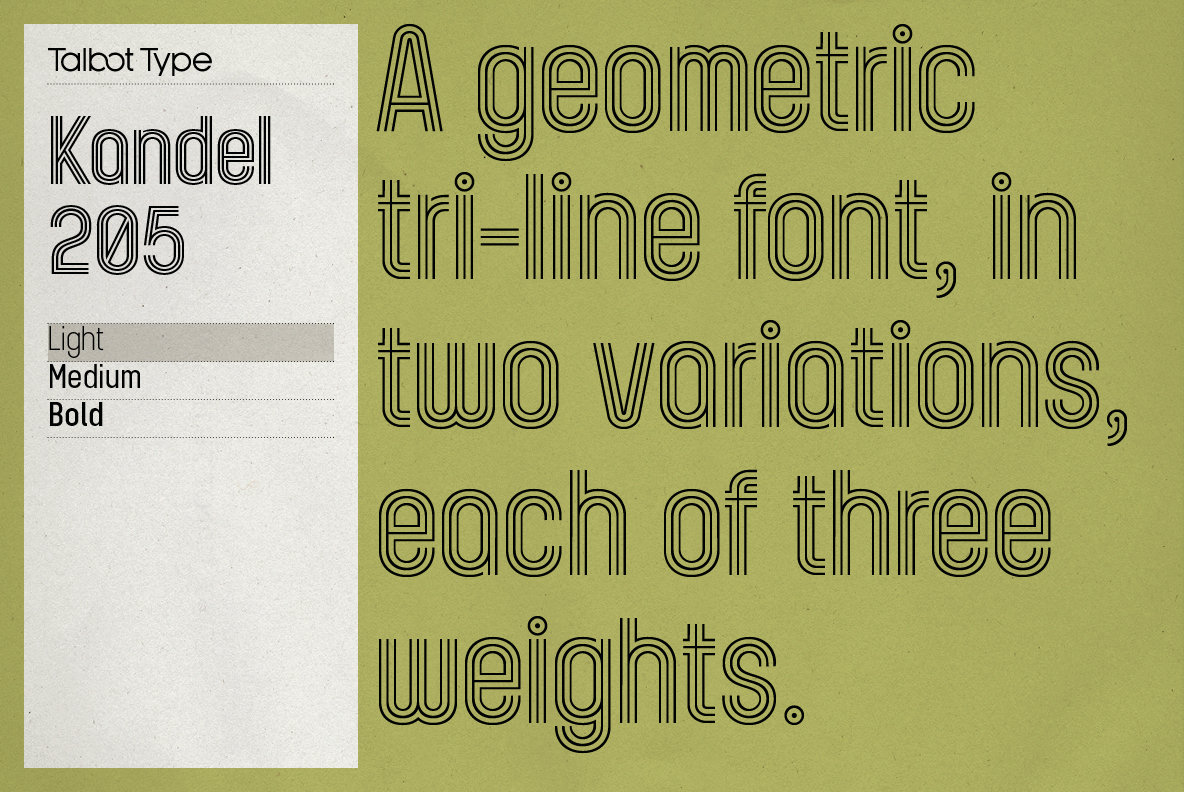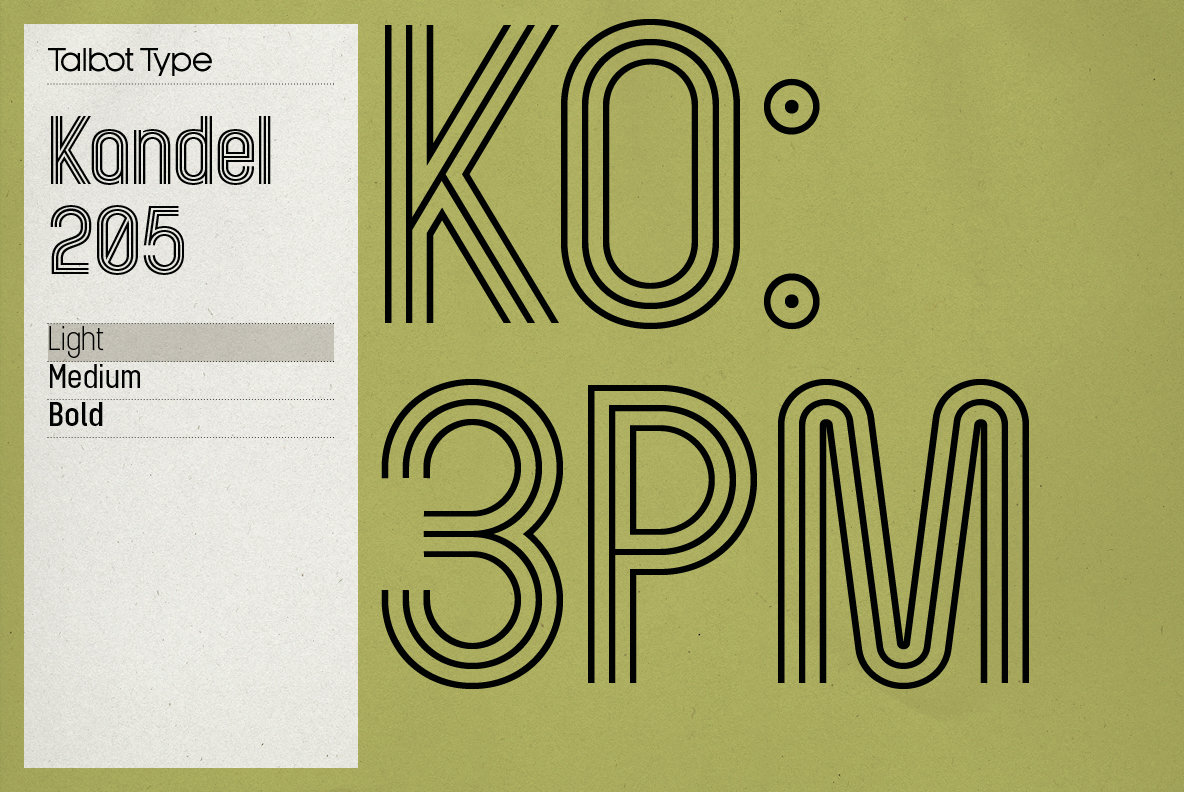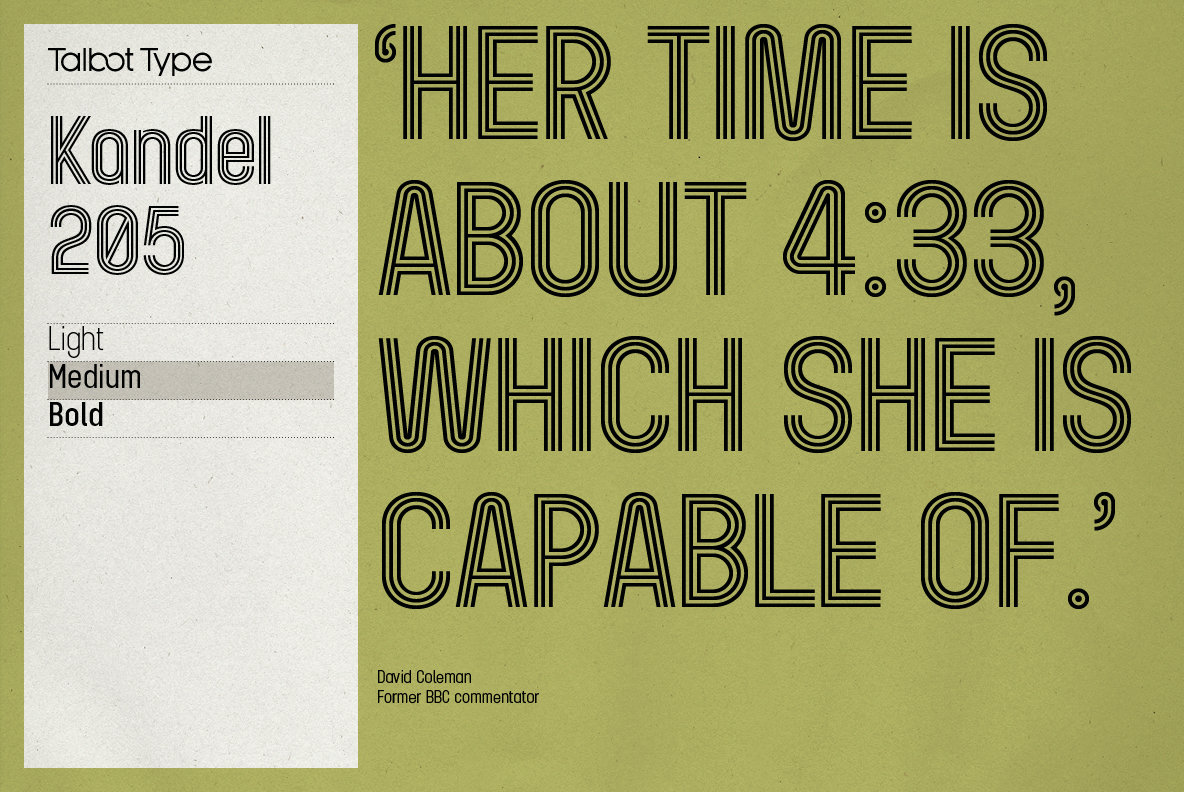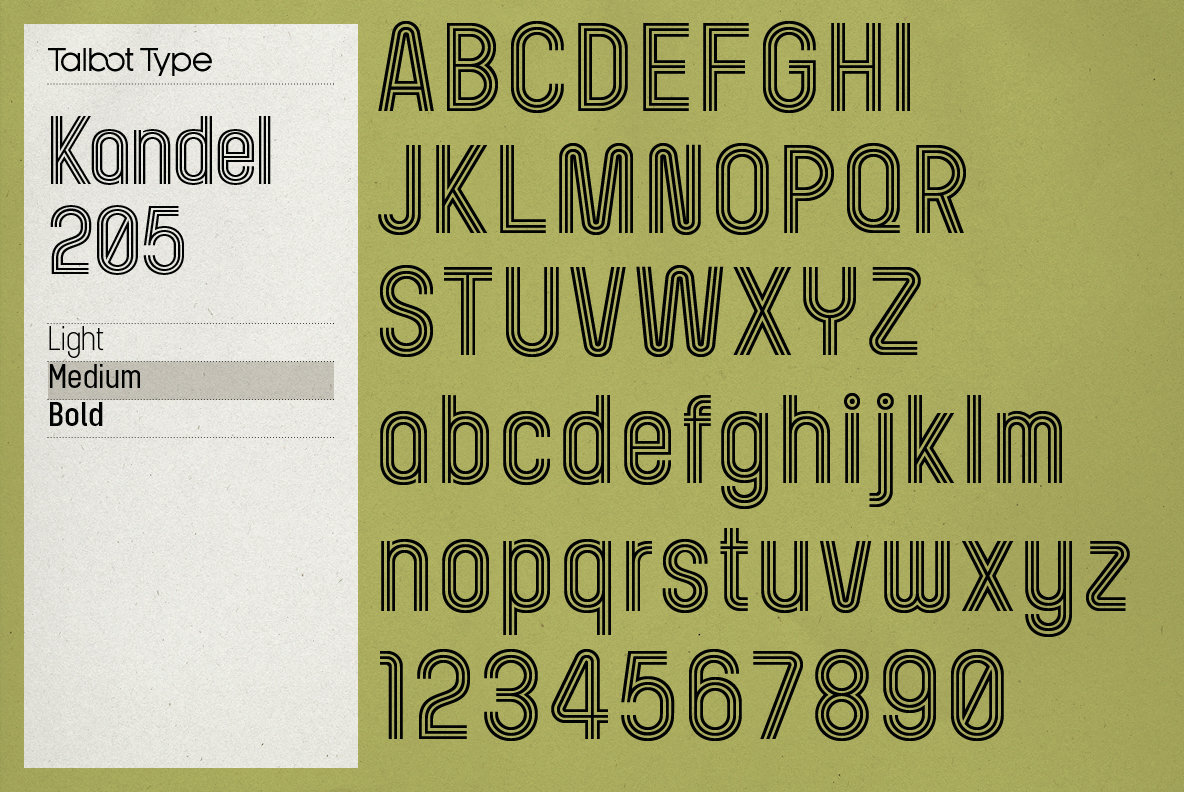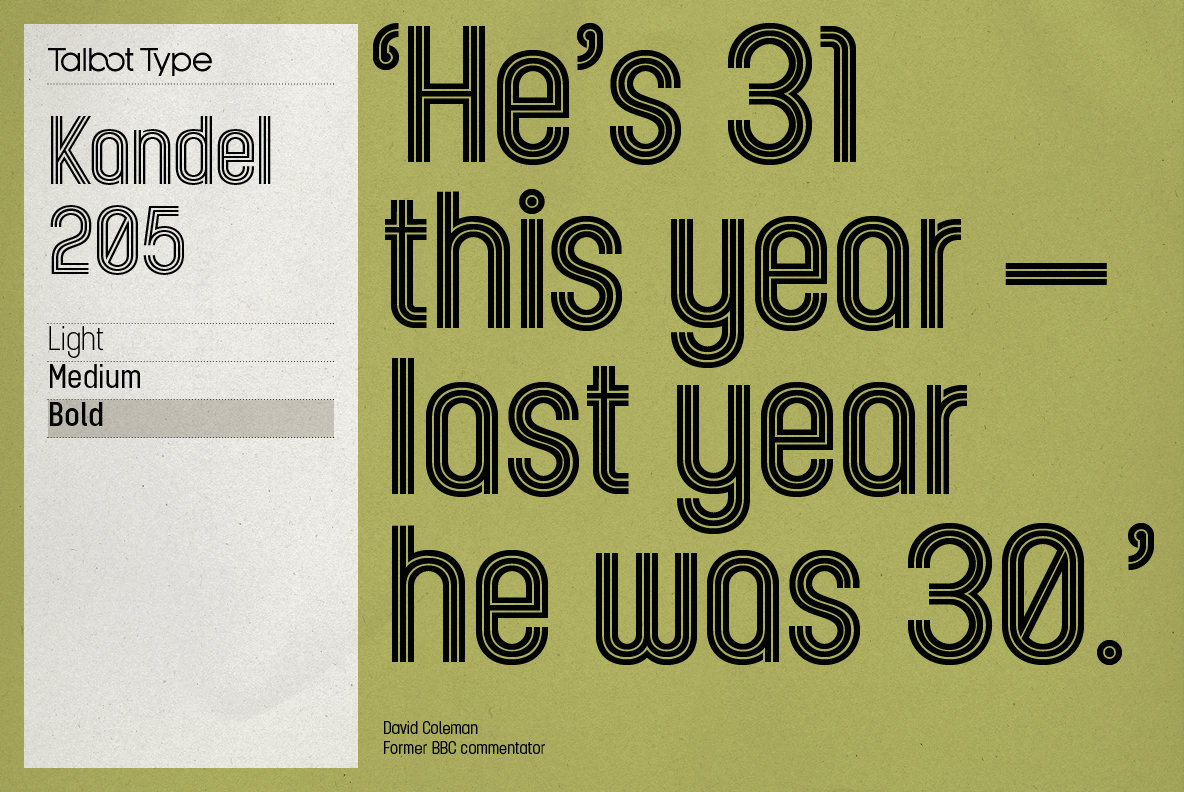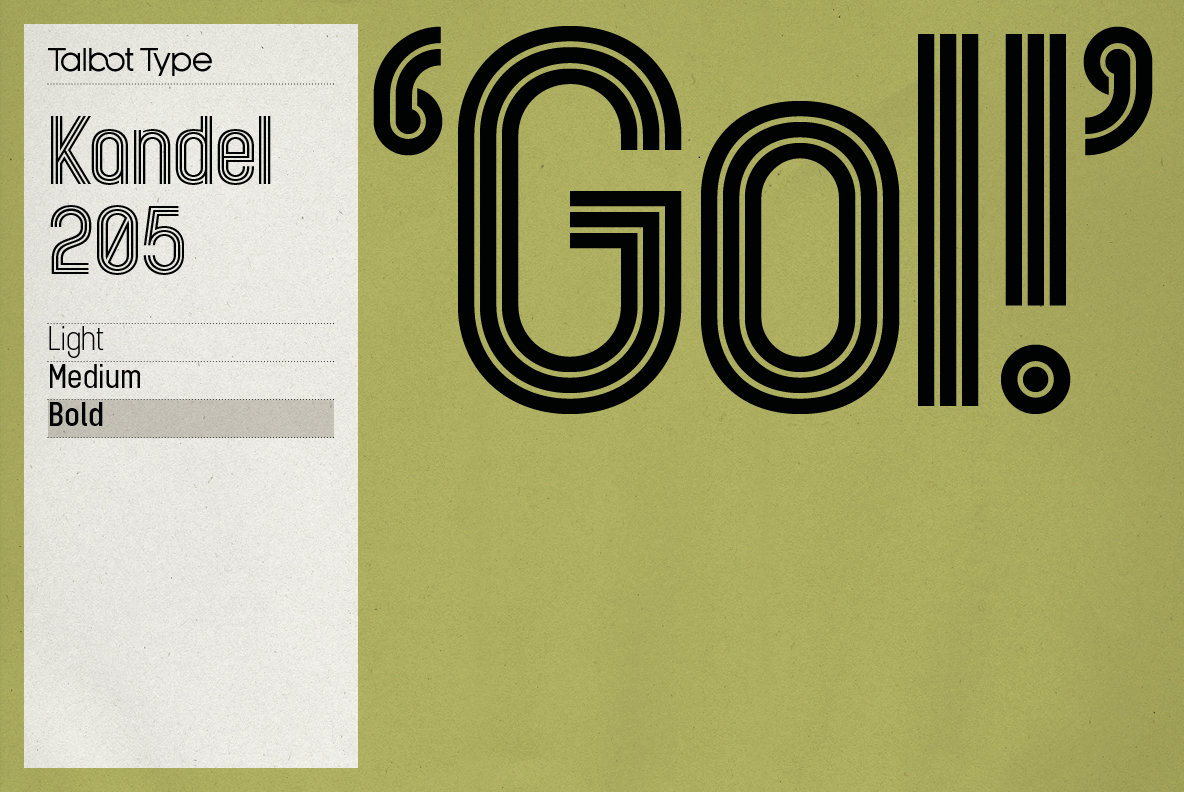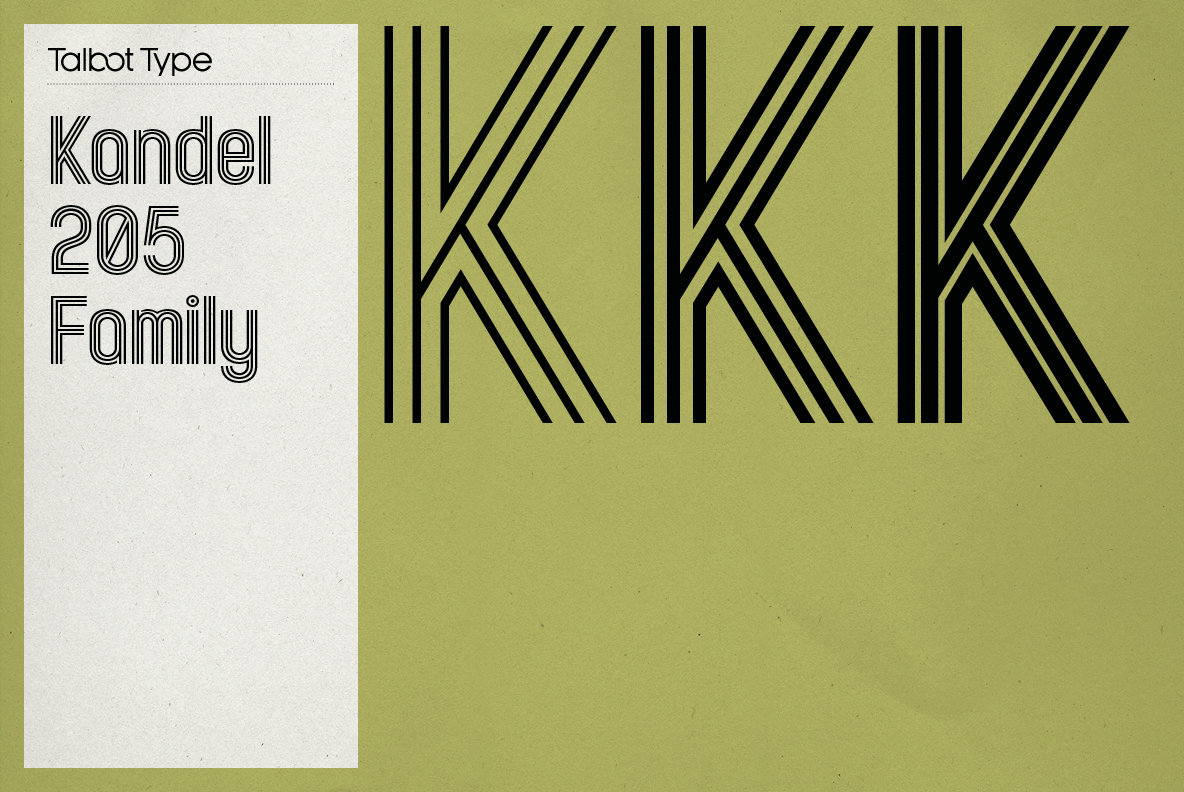
Kandel 205 Font
Kandel 205 is a geometric, tri-line, display and headline font available in a family of three weights. Its bold, graphic styling gives it great stand-out qualities and a highly individual look. It’s particularly well suited to bringing energy to designs, or for designs with a sporting theme. It’s also available with character variations as Kandel 105.